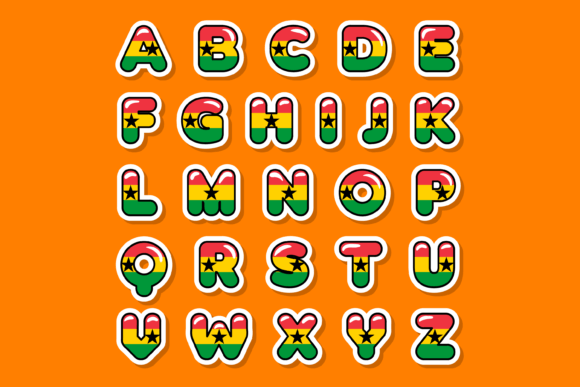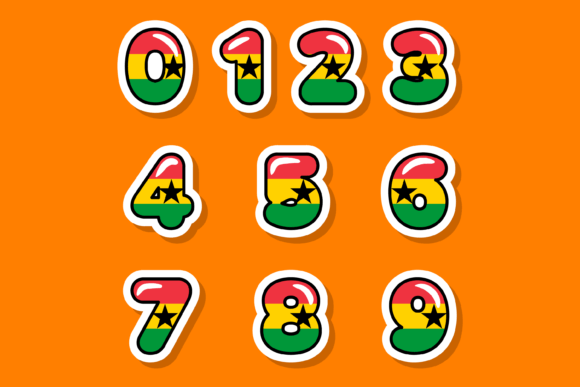
Ghana Font: Add a Touch of National Pride to Your Designs
Are you looking for a unique and vibrant font to add a pop of color to your designs? Look no further than the Ghana Font, a stunning color font inspired by the Ghanaian flag. This incredible font is perfect for designers, crafters, and anyone looking to add a touch of national pride to their creations.
What is Ghana Font?
The Ghana Font is a specially designed color font that mimics the colors of the Ghanaian flag. The font is designed to be versatile and can be used for a wide range of applications, from custom designs and DIY crafts to digital art and graphic design. The font’s unique style and vibrant colors make it an excellent choice for anyone looking to add a touch of African flair to their work.
Features of Ghana Font
- Unique Color Scheme: The Ghana Font features a stunning color scheme inspired by the Ghanaian flag, with a combination of red, gold, and green colors.
- High-Quality Design: The font is designed with high-quality graphics, ensuring that it looks great in any size or resolution.
- Versatile: The Ghana Font can be used for a wide range of applications, from digital art and graphic design to custom designs and DIY crafts.
Uses of Ghana Font
The Ghana Font is an incredibly versatile font that can be used in a wide range of applications. Here are some ideas to get you started:
- Custom Designs: Use the Ghana Font to create custom designs for t-shirts, mugs, and other promotional products.
- DIY Crafts: Add a touch of national pride to your DIY crafts, such as scrapbooking, card making, and other paper crafts.
- Digital Art: Use the Ghana Font to create stunning digital art, including illustrations, graphics, and animations.
- Graphic Design: The Ghana Font is perfect for graphic design projects, including logos, brochures, and other marketing materials.
Benefits of Using Ghana Font
There are many benefits to using the Ghana Font in your designs. Here are a few:
- Adds a Touch of National Pride: The Ghana Font is a great way to add a touch of national pride to your designs, making it perfect for Ghanaian designers, crafters, and artists.
- Unique and Eye-Catching: The font’s unique color scheme and style make it an eye-catching addition to any design.
- Increases Creativity: The Ghana Font can inspire creativity and add a new level of excitement to your designs.
The Ghana Font is an incredibly cool color font designed in the style of the Ghanaian flag. Whether you use it for custom designs, DIY crafts, or just any creation that requires a lovely touch, this font will be an amazing choice. With its unique color scheme, high-quality design, and versatility, the Ghana Font is perfect for designers, crafters, and anyone looking to add a touch of national pride to their creations.